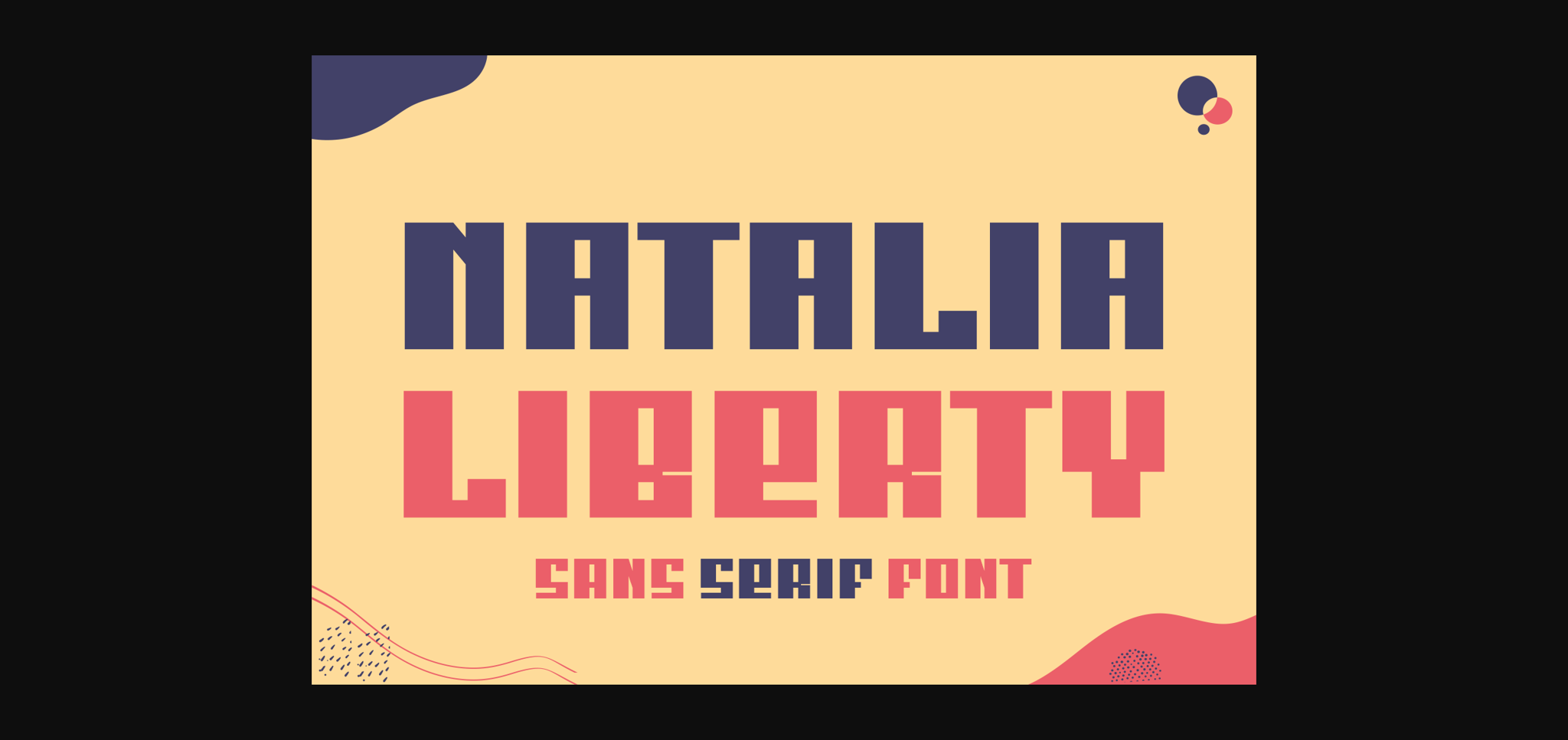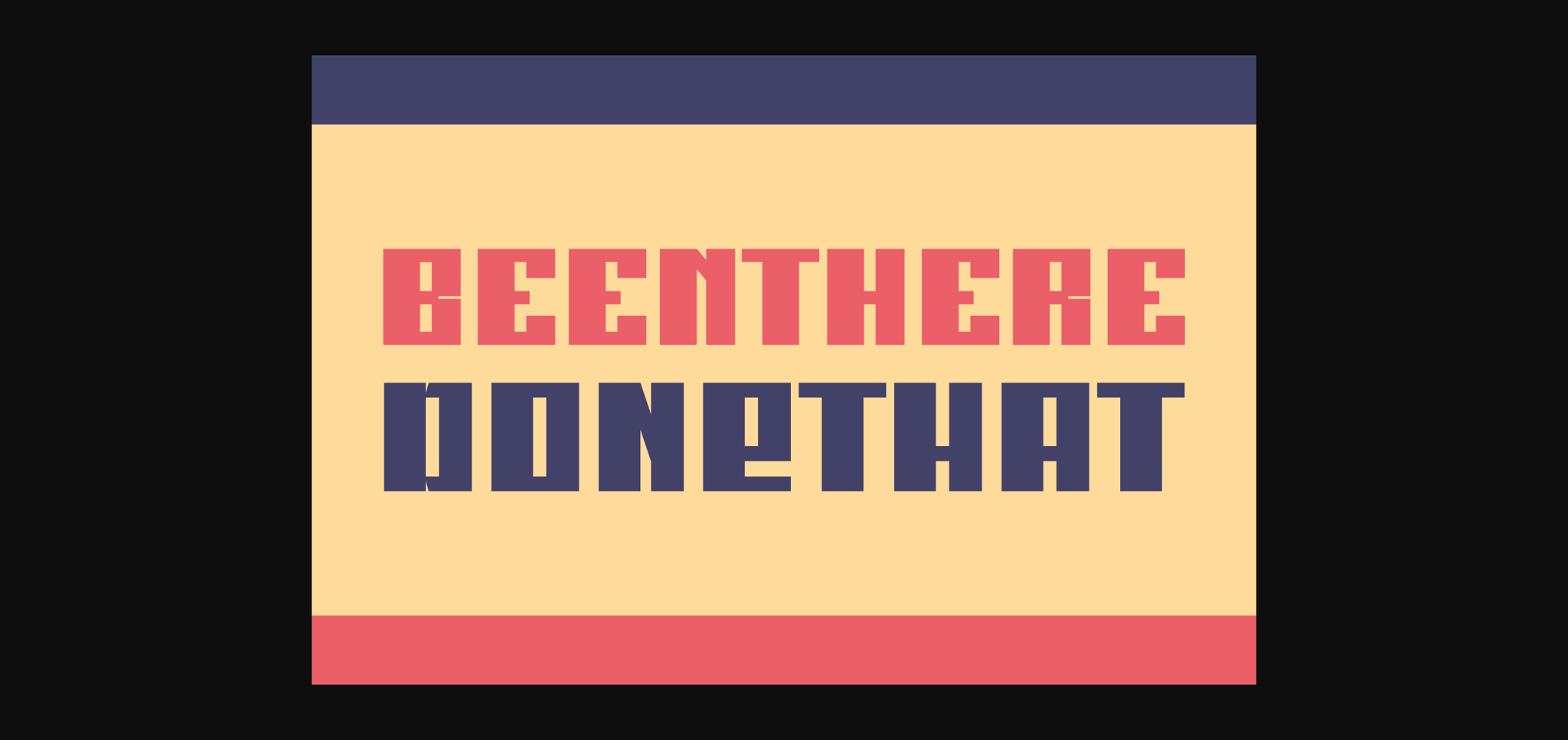
About Natalia Liberty Font
With its retro cut and clean lines, it adds a touch of nostalgia and timeless elegance to your design projects. Perfect for creating a classic, yet contemporary look.